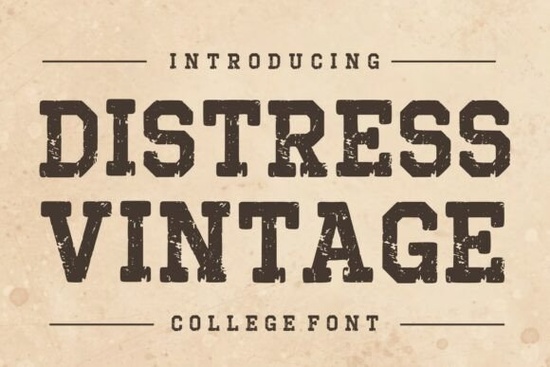
Distress Vintage Font is a unique typeface that brings a sense of history and character to any design project. Whether you're creating logos, posters, or merchandise, this font adds a rugged, authentic feel that stands out. Its weathered textures and classic styling make it ideal for retro-themed designs, especially those inspired by college culture and vintage sports apparel.
If you're looking for fonts that capture the essence of nostalgia, Distress Vintage Font fits perfectly into that category. It's a great choice for designers who want to add a touch of authenticity without compromising on style. The font’s boldness and distinct texture make it versatile enough for both digital and print applications.
When working with vintage-inspired projects, the right font can make all the difference. Distress Vintage Font is designed to evoke the look of old school team jerseys, campus banners, and retro posters. Its distressed appearance gives your work an instant sense of age and authenticity, which can be especially useful for branding or themed merchandise.
Designers and small business owners often use this font for items like t-shirts, mugs, and packaging. It works well with other retro elements, such as faded colors or vintage graphics. If you're creating something that needs a nostalgic vibe, this font can help you achieve that look effortlessly.
How to Use Distress Vintage Font in Your Projects
One of the best things about Distress Vintage Font is its versatility. You can use it for headlines, logos, or even body text depending on the design. For example, it’s perfect for creating a varsity-style logo or a retro poster for an event. The font’s bold structure ensures it remains readable even at smaller sizes.
Try pairing it with other fonts that have a clean or modern feel to create contrast. This can help draw attention to key elements in your design while maintaining a cohesive look. You can also experiment with different color schemes to match the overall theme of your project.
Why Choose Distress Vintage Font?
Unlike many other fonts, Distress Vintage Font isn’t just about style it’s about storytelling. Each letter carries a sense of history, making it a powerful tool for designers who want to convey a specific mood or message. Whether you’re designing for a sports team, a vintage shop, or a creative brand, this font can help you express that identity clearly.
The font’s weathered texture adds depth and dimension, which can enhance the visual appeal of your work. It’s also easy to use, with clear outlines and consistent spacing that make it suitable for both beginners and experienced designers.
Whether you're a designer, a crafter, or a small business owner, Distress Vintage Font can help you create designs that feel authentic and full of character. Its blend of boldness and vintage charm makes it a standout choice for anyone looking to add a touch of history to their work.
Before finalizing your design, make sure to test the font in different sizes and contexts. This will help you see how it performs in real-world applications and ensure it meets your project’s needs. With the right approach, Distress Vintage Font can become a go-to resource for your creative projects.
- Check the font’s readability at different sizes
- Pair it with complementary fonts for contrast
- Use it for logos, posters, and merchandise
- Experiment with color schemes that match the vintage theme